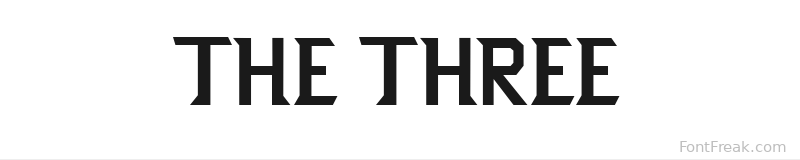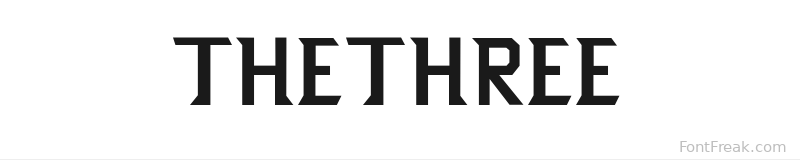
THETHREE
THE THREE
The THETHREE font by Kong Font is a striking display typeface that effortlessly captures attention with its bold and geometric design. Released in 2019, this font showcases a unique style that combines modern aesthetics with a sense of strength and stability. Characterized by its heavy stroke weight and minimal contrast, THETHREE stands out in any application, making it an excellent choice for various creative projects. The letters are well-spaced, offering clarity and legibility, which is essential in display typefaces.
The visual characteristics of THETHREE include sharp angles and a distinctive structure that adds an element of sophistication while retaining a contemporary feel. This makes it suitable for a range of applications, including eye-catching movie posters, dynamic branding for tech startups, stylish restaurant menus, and standout promotional materials. Its versatility allows graphic designers and content creators to use it effectively across different media, whether in digital formats or print.
Targeted towards graphic designers, small business owners, and content creators, THETHREE provides an opportunity to elevate any project with its unique flair. The font's simplistic yet bold design ensures that it remains relevant in today’s fast-paced design landscape, appealing to those looking to make a statement without overwhelming their audience.
In conclusion, the THETHREE font free download offers creators an exceptional tool for enhancing their visual narratives. Its distinctive style, combined with its versatility, allows it to shine in a variety of settings, making it a standout choice for anyone seeking to leave a lasting impression. With its modern appeal and strong presence, THETHREE is more than just a font; it’s a statement.